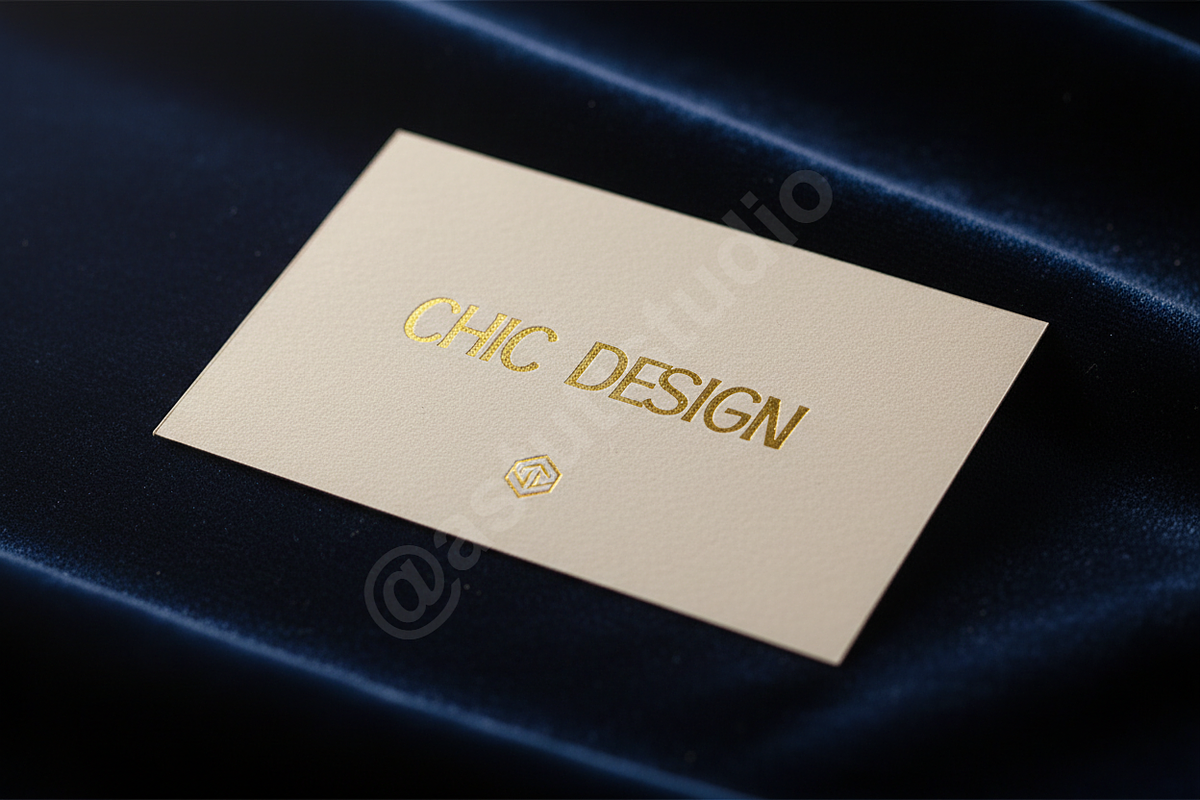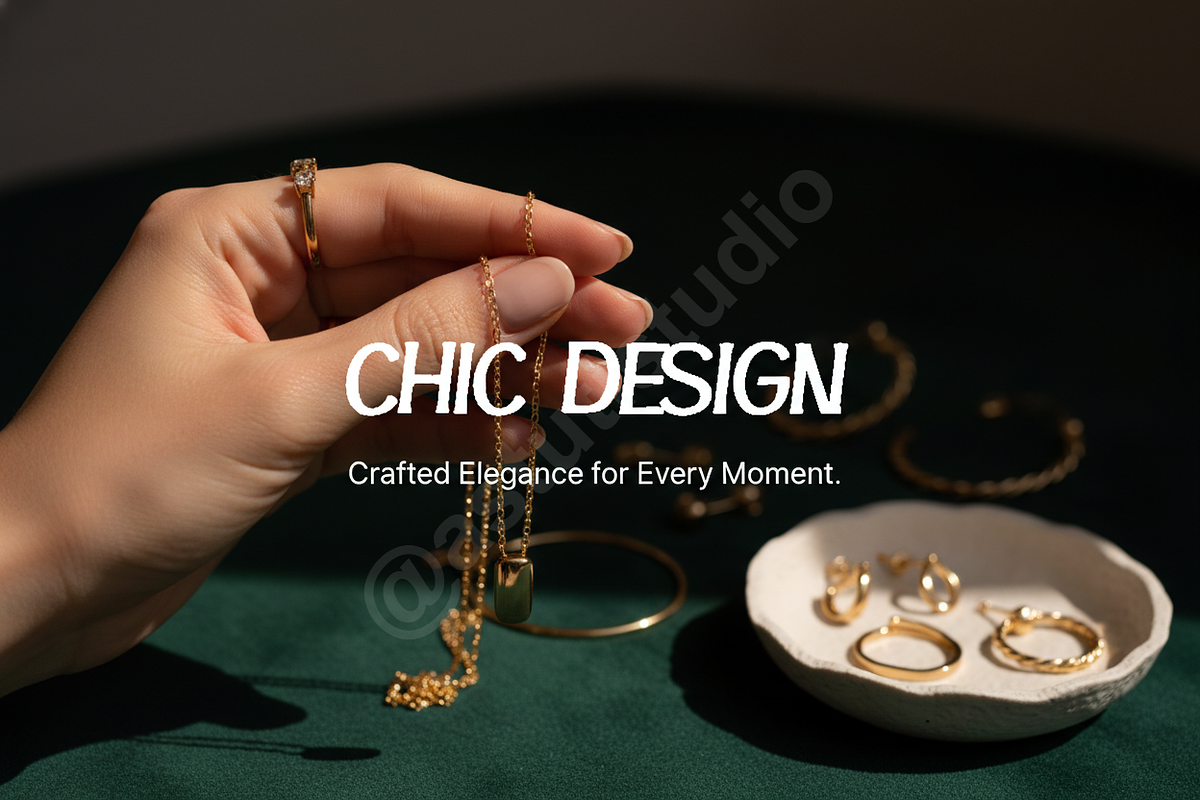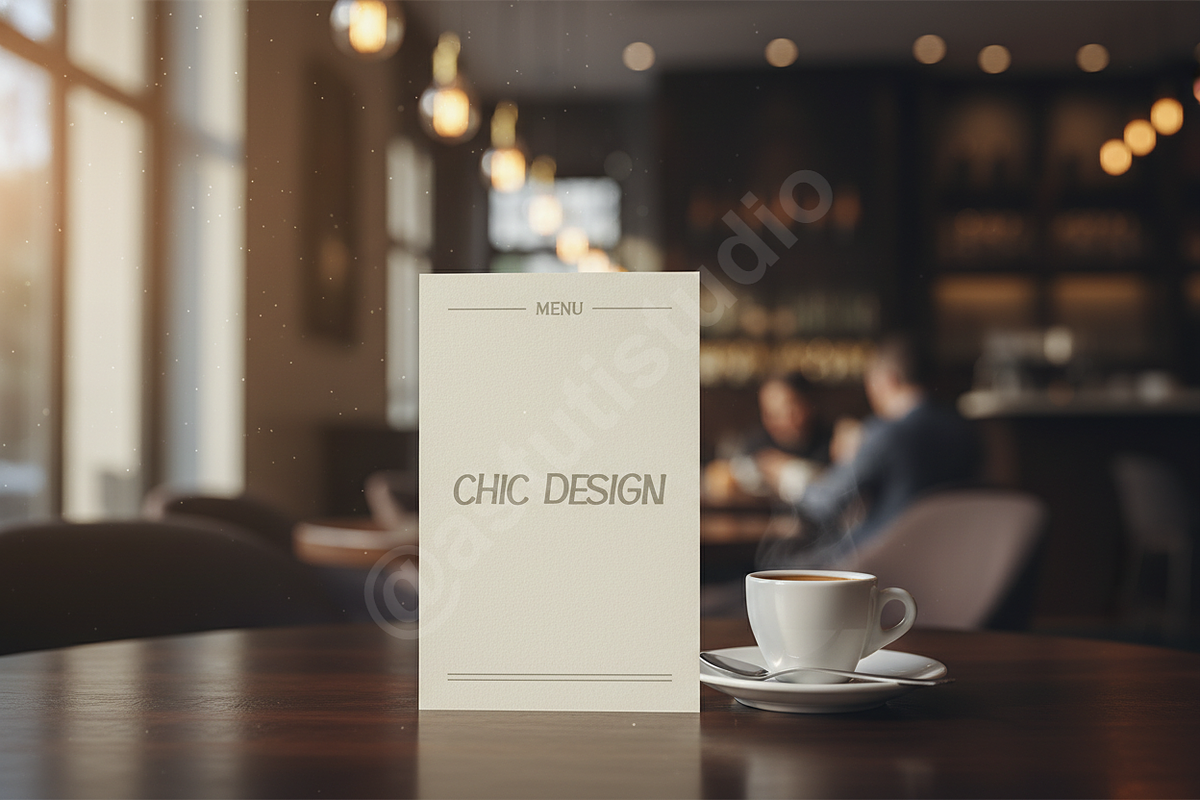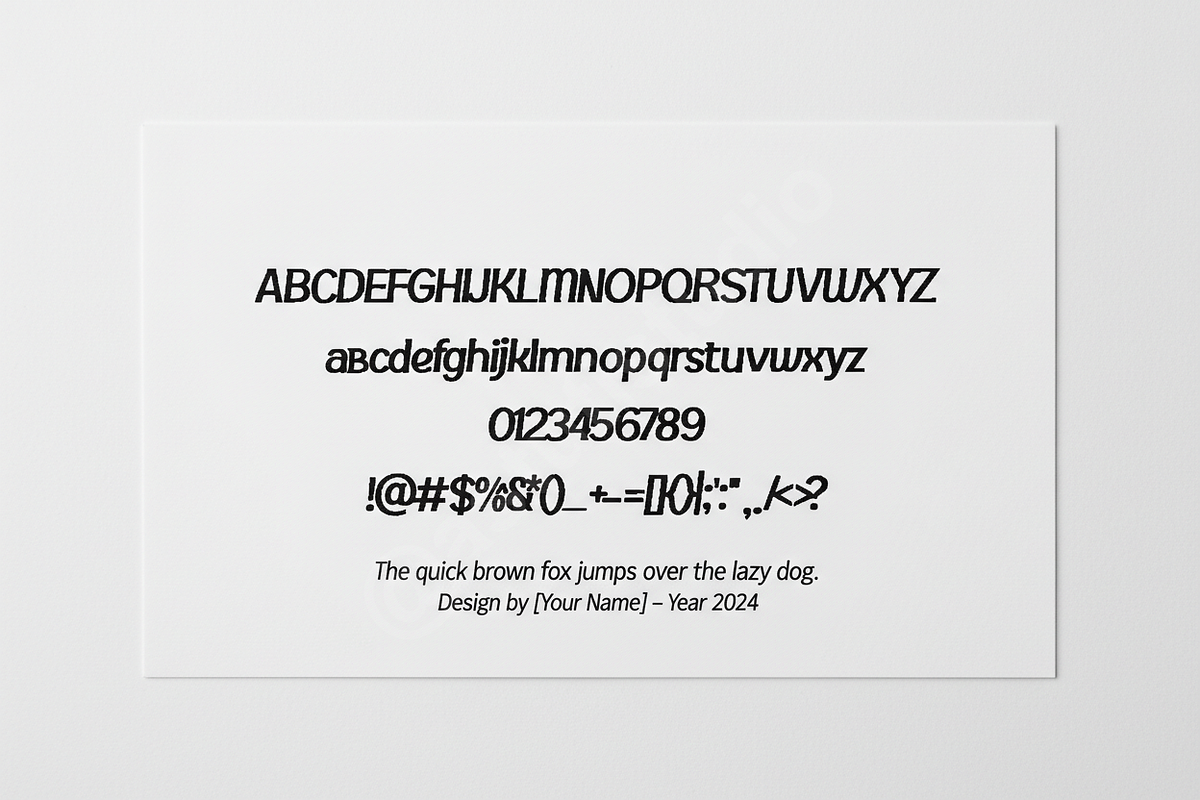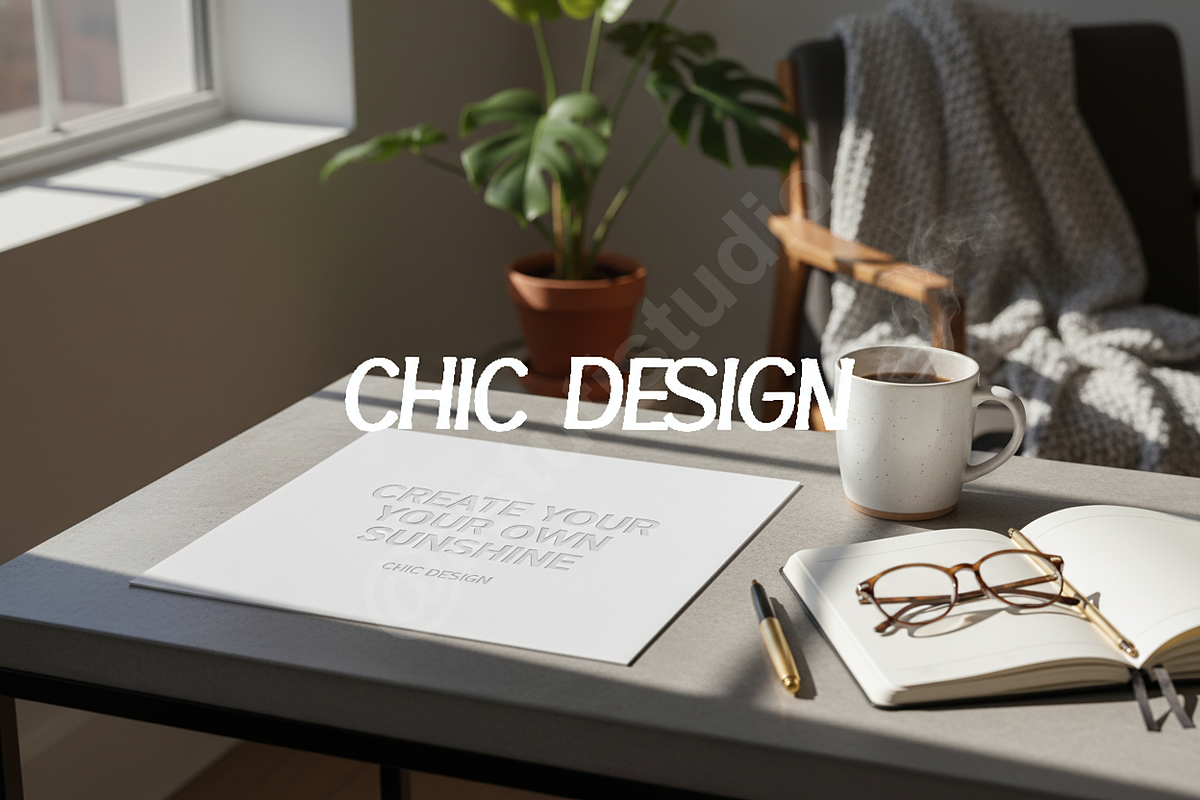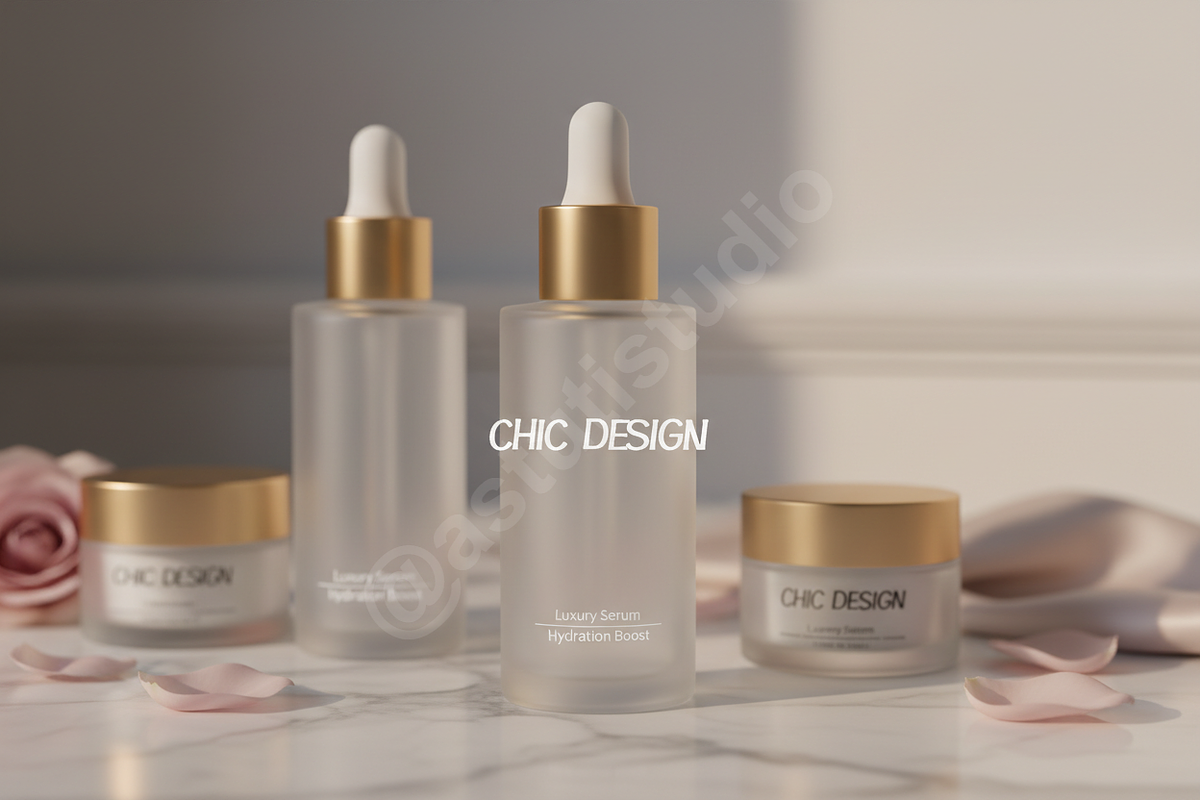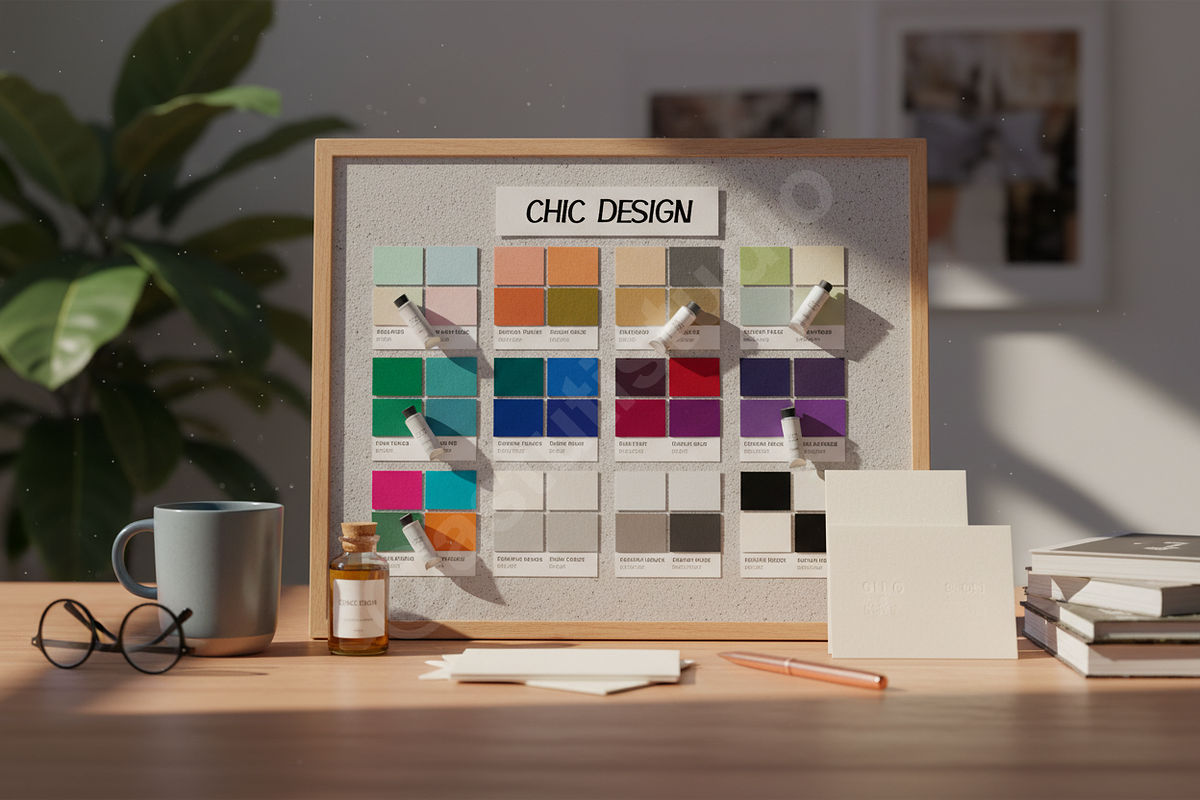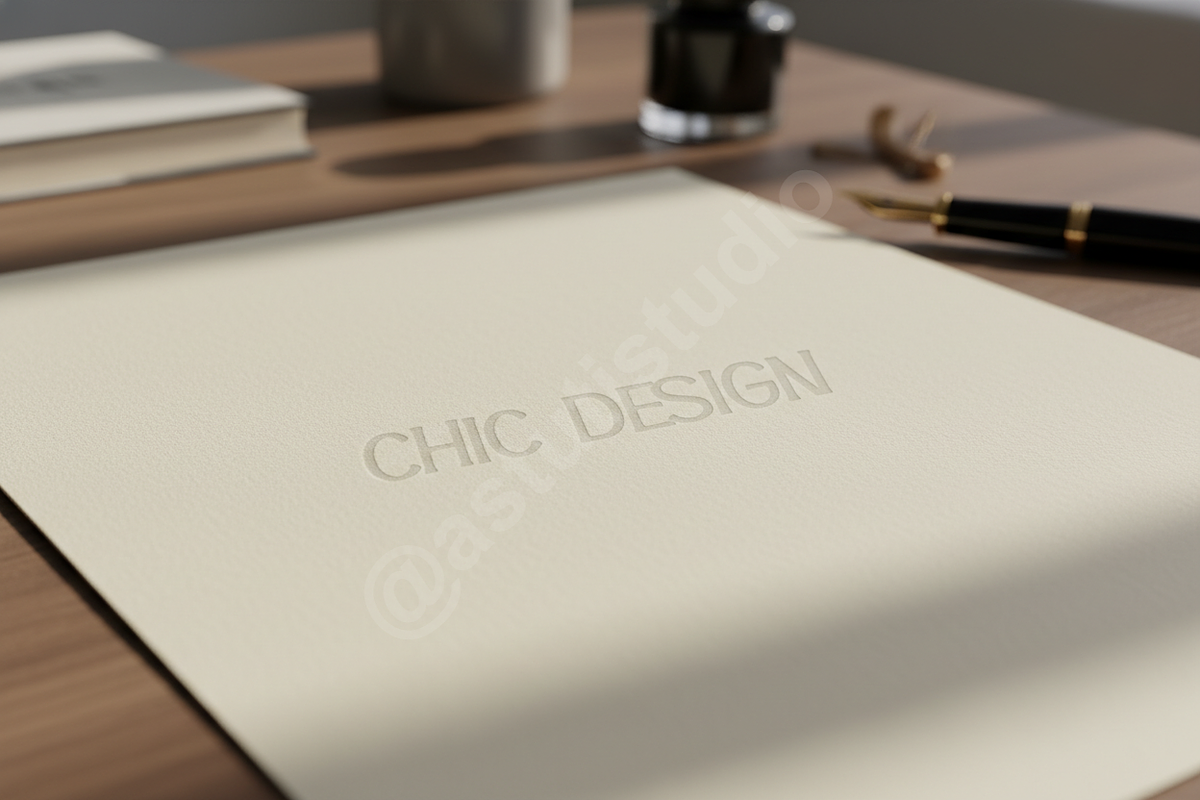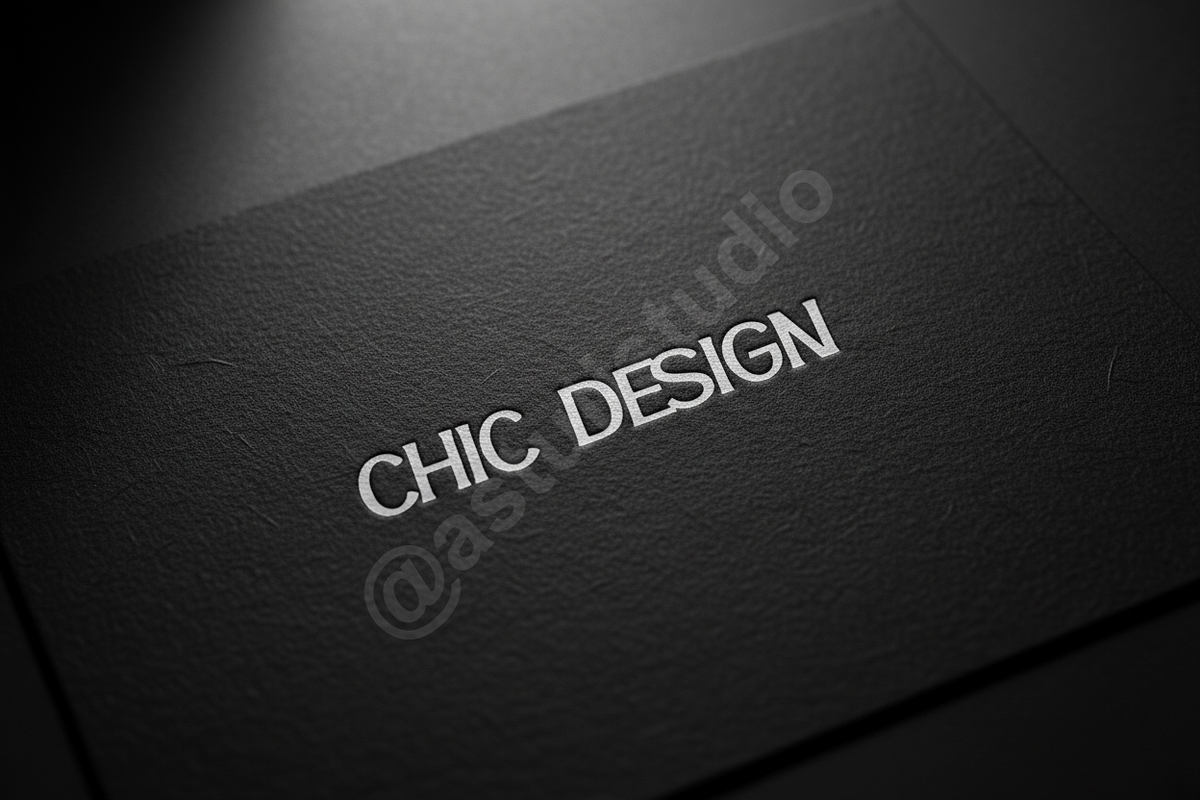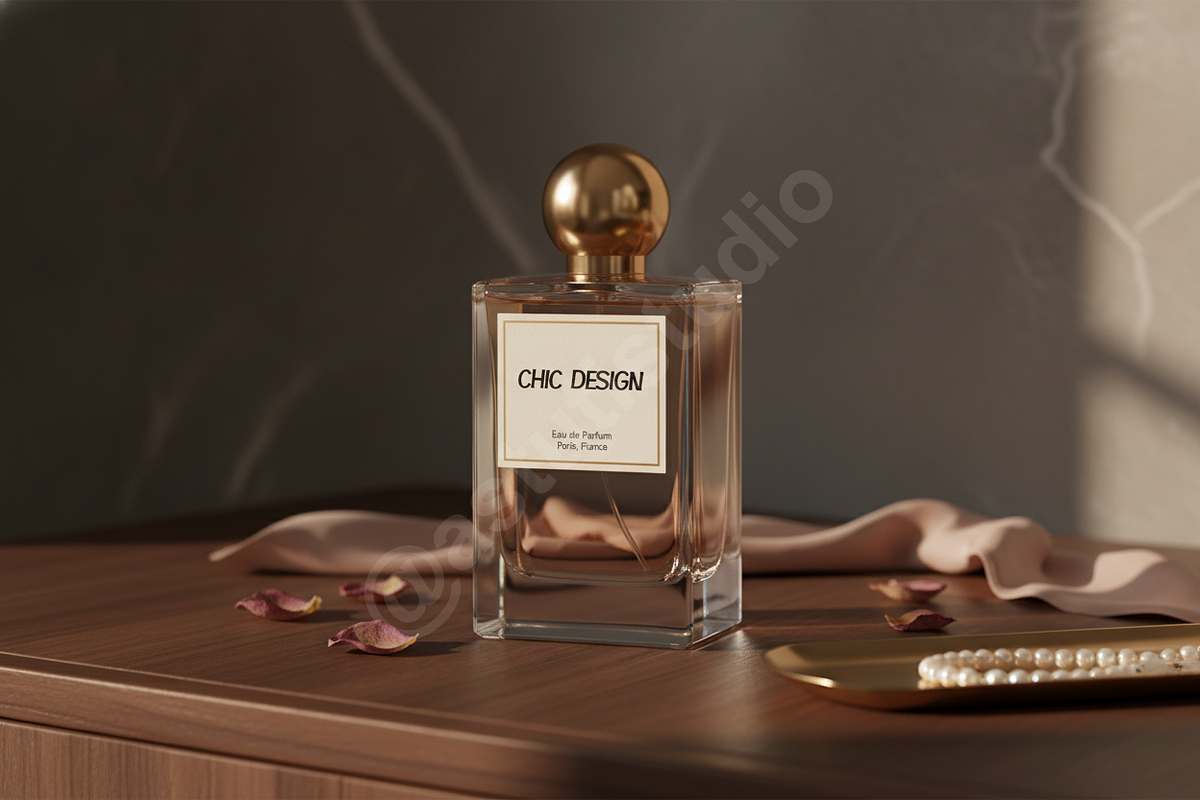
Fusu - Elegant Serif Font for Luxury
Fusu: A Premium Serif Typeface
Presenting Fusu, an exquisite serif typeface meticulously crafted to embody sophistication and timeless elegance. Fusu transcends ordinary typography, offering a harmonious blend of classic charm and modern refinement. It is the definitive choice for projects demanding a touch of luxury, making it perfect for high-end branding, captivating editorial layouts, and impactful social media campaigns. Elevate your design narrative with Fusu's unparalleled grace and commanding presence.
- Refined Aesthetics: Each character is meticulously crafted with delicate curves and balanced proportions, ensuring a visually stunning and cohesive appearance across all applications.
- Versatile Application: From striking headlines to elegant body text, Fusu maintains exceptional legibility and impact, adapting effortlessly to diverse design needs.
- Timeless Appeal: Inspired by classical design principles, Fusu possesses an enduring quality that transcends fleeting trends, guaranteeing your projects remain sophisticated for years to come.
- Multilingual Support: A comprehensive glyph set includes extended Latin characters to support a wide range of languages, ensuring global reach.
- Full set of Uppercase and Lowercase letters
- Numbers, Punctuation & Symbols
- Extensive Multilingual Support